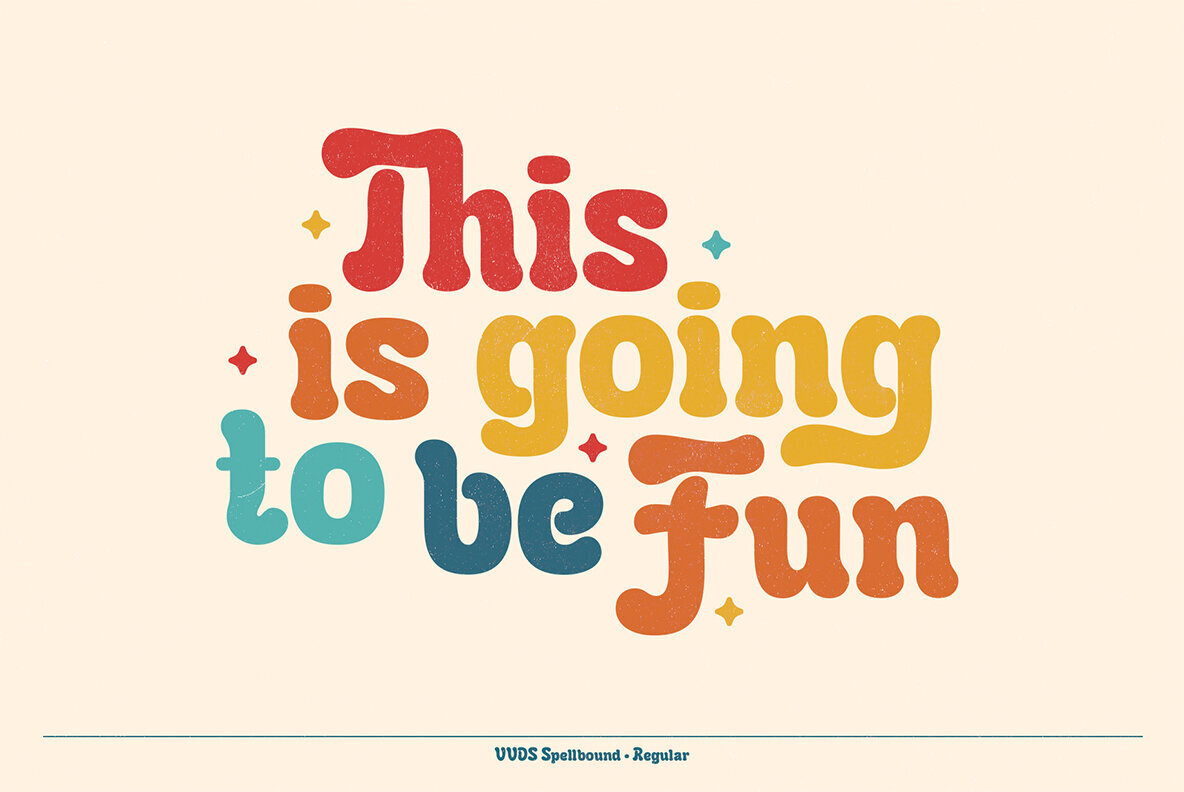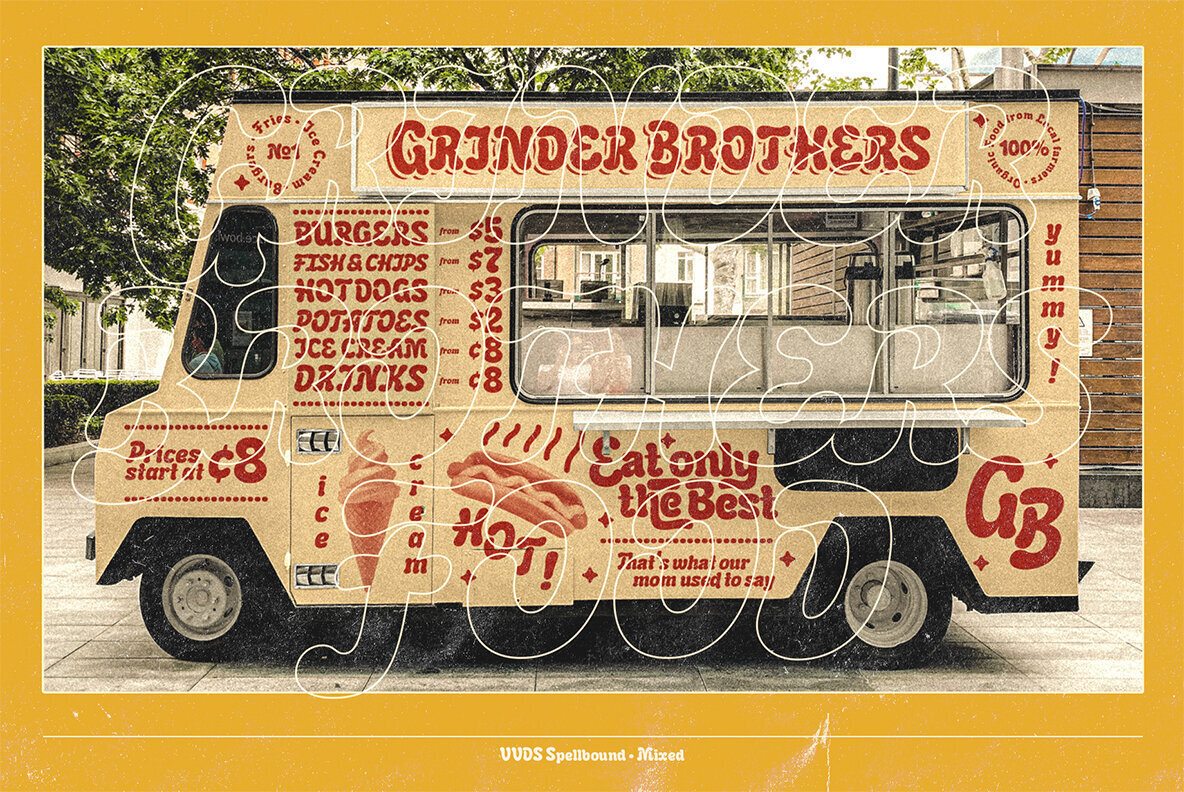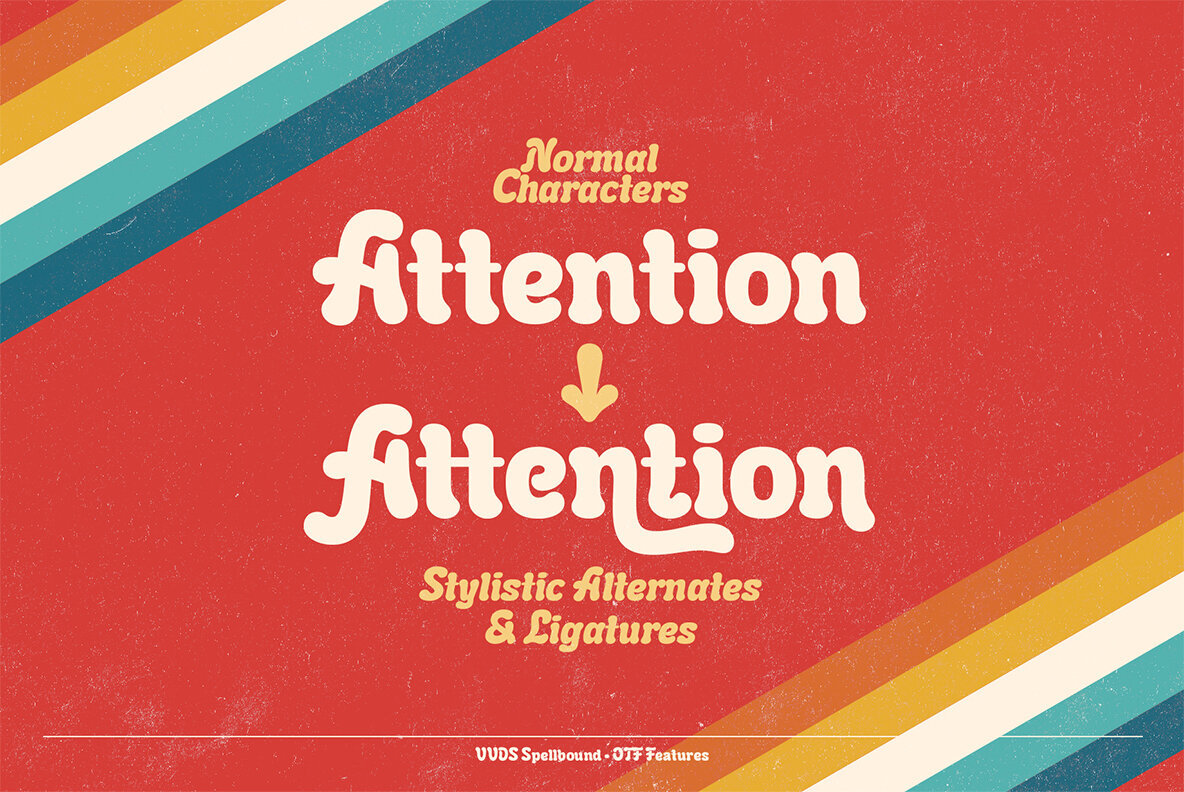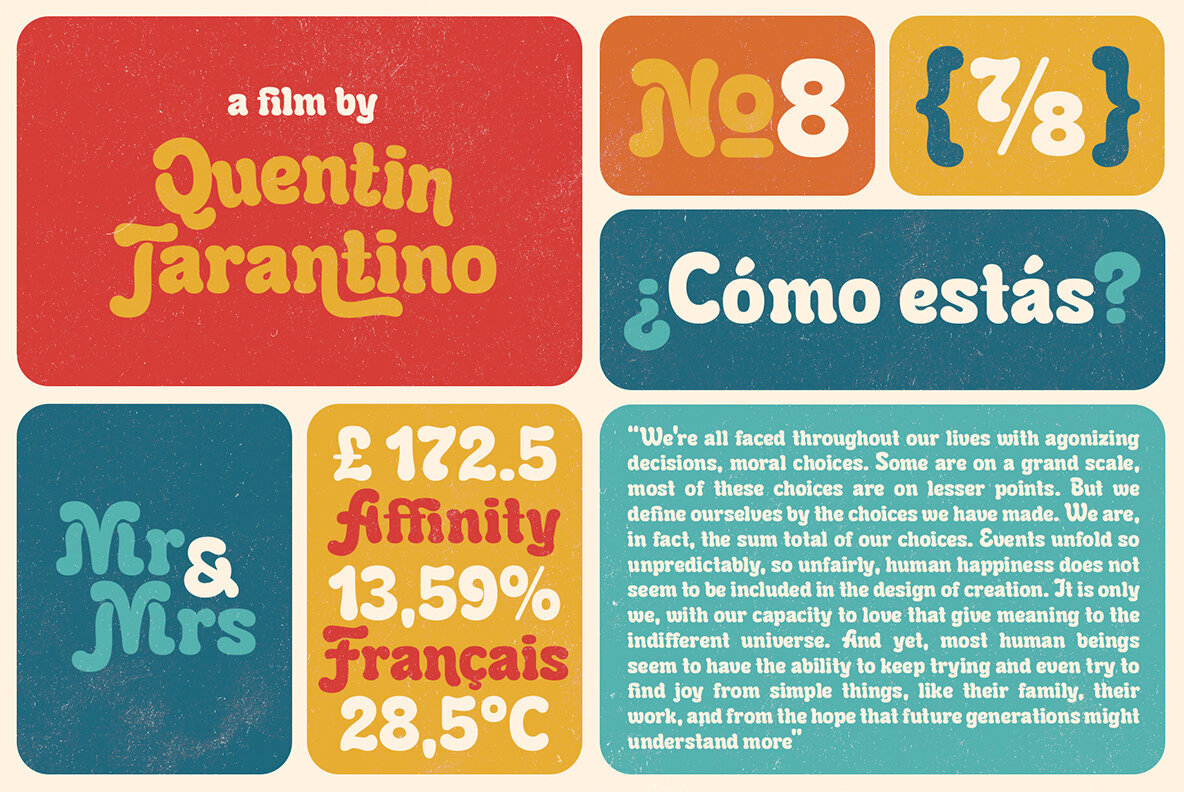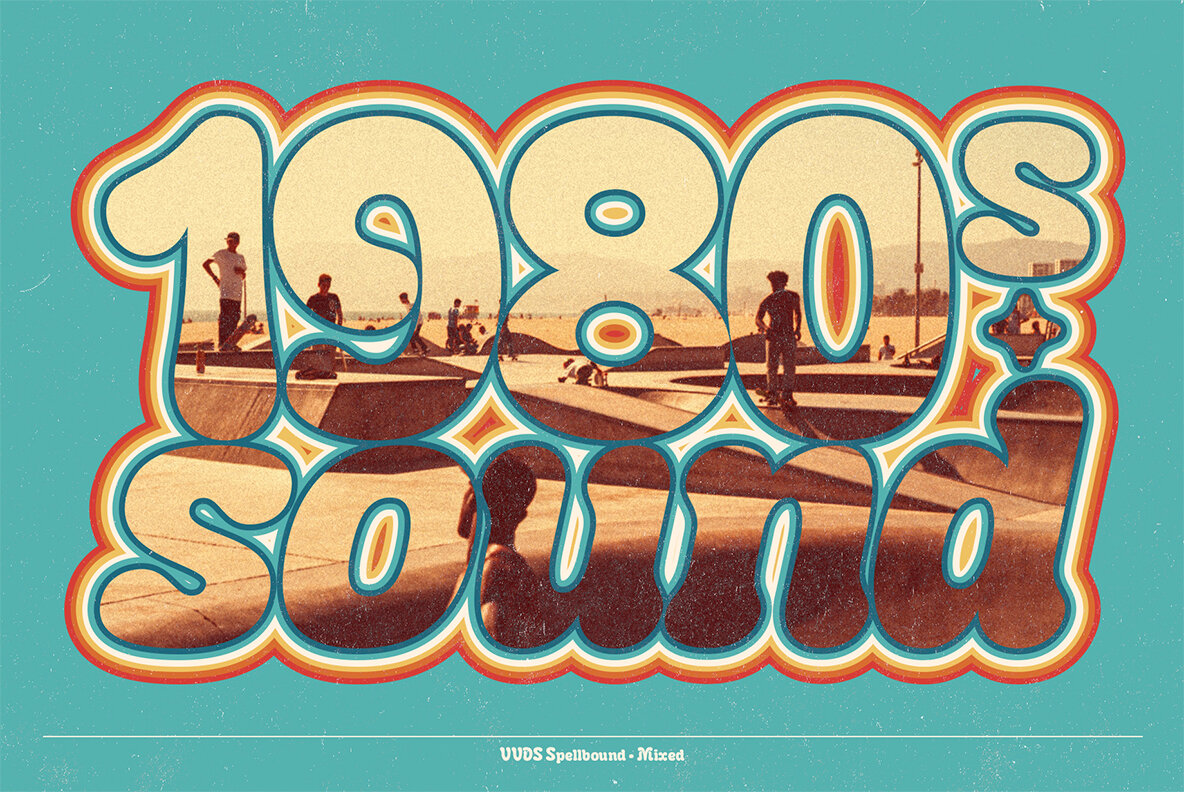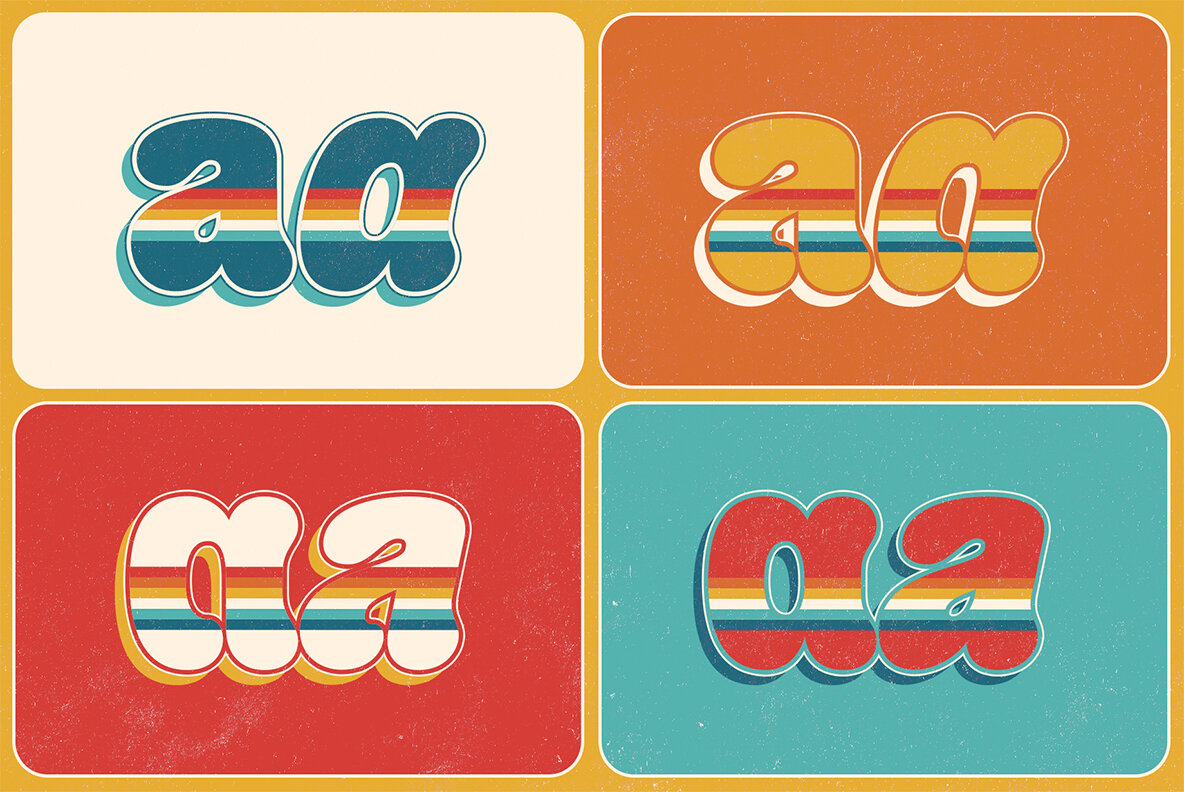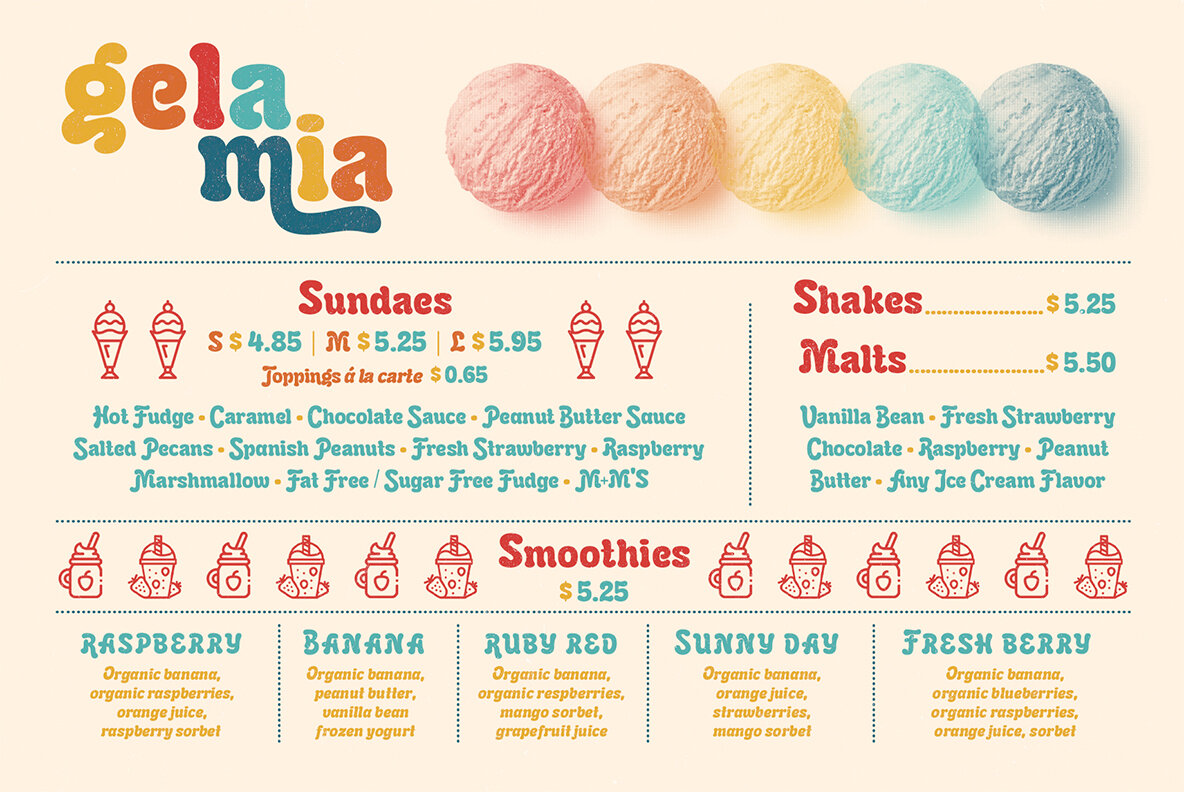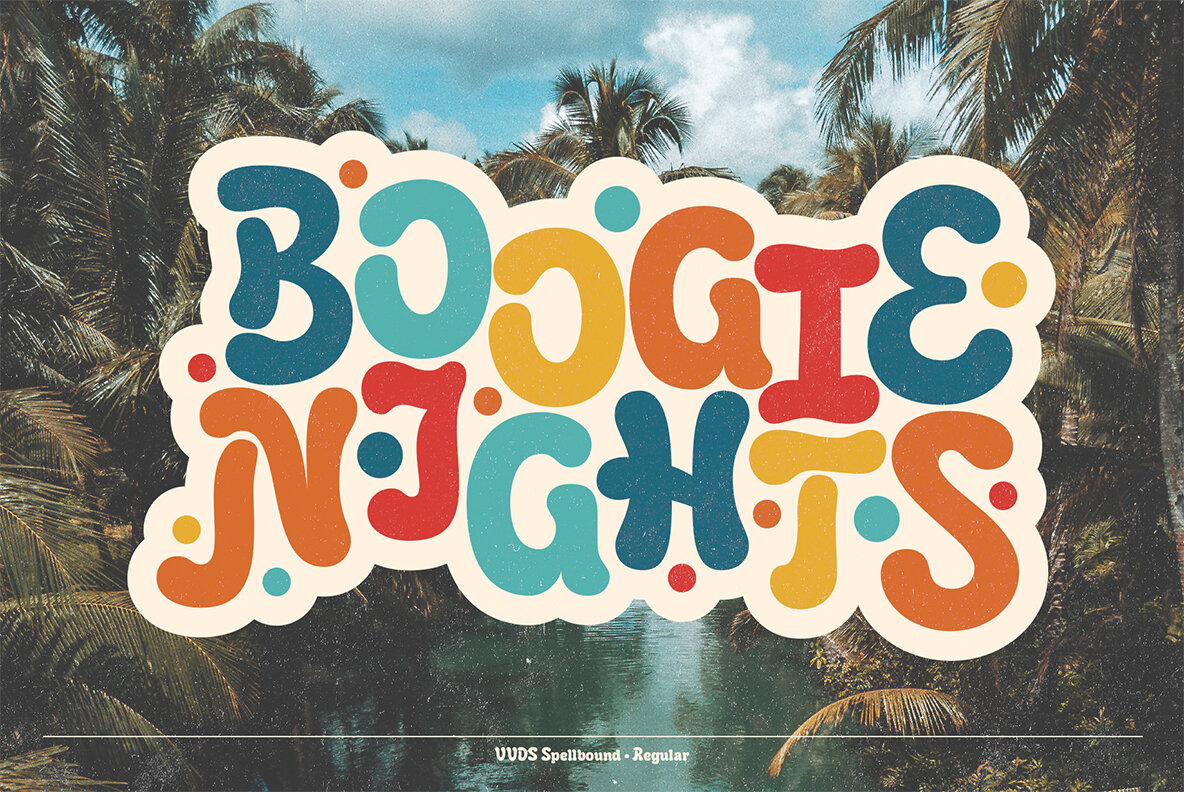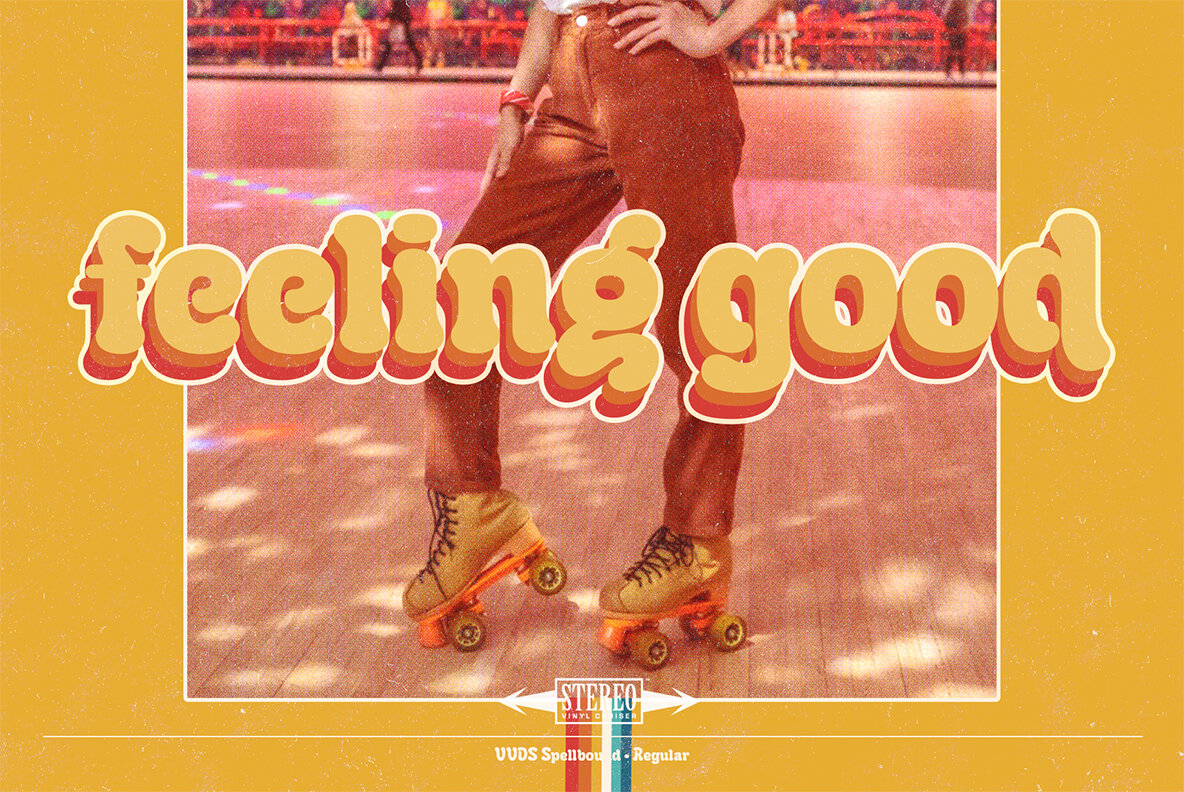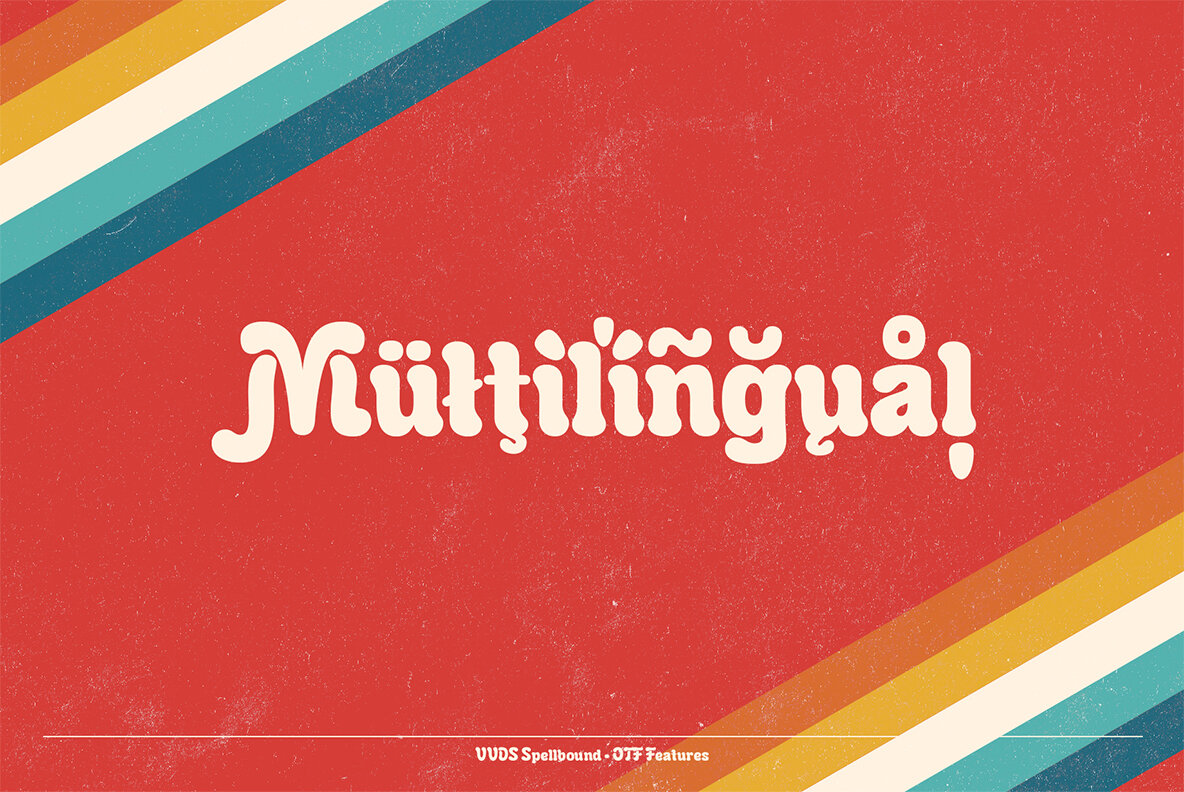
VVDS Spellbound Font
VVDS Spellbound an authentic groovy typeface. So, The Stranger Things series is already watched and you'll waiting the last one season for another two years. Well, if you miss for late 70s or early 80s in your design – this one is for you. Smooth, groovy and playful – exactly for your vintage projects. This typeface will suit for the display block texts like package labels or will be perfect for an any display header. Create a vintage t-shirt print or make groovy stickers - Spellbound will suits perfectly. A lot of alternates will give you a really wide range of results. You may combine it with Italics and get a really playful pair.